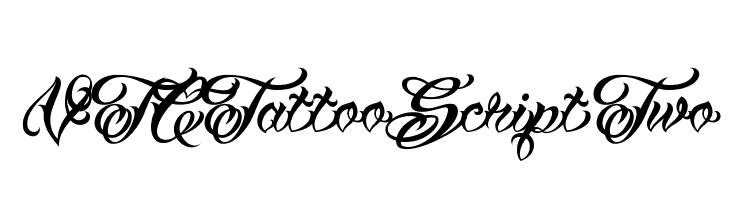
An ornate, tattoo-inspired script font with decorative flourishes.
An ornate script font with intricate loops and flourishes, reminiscent of traditional calligraphy.